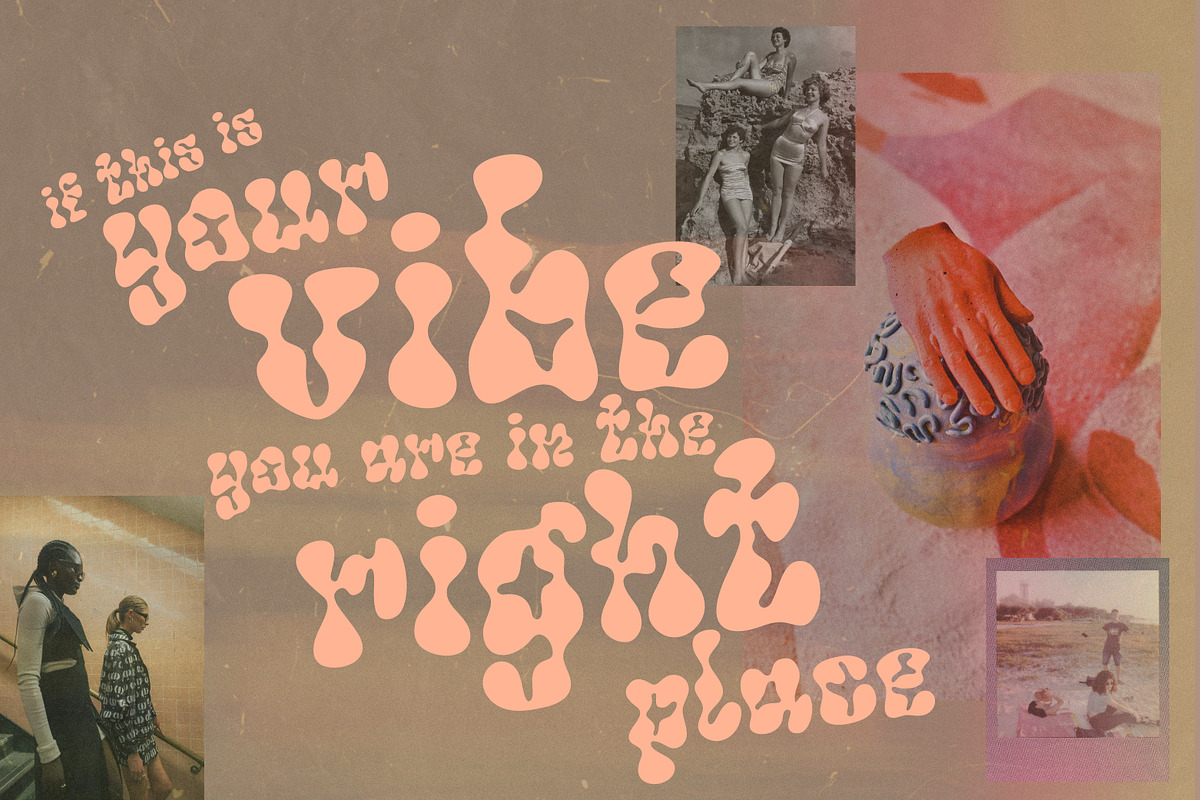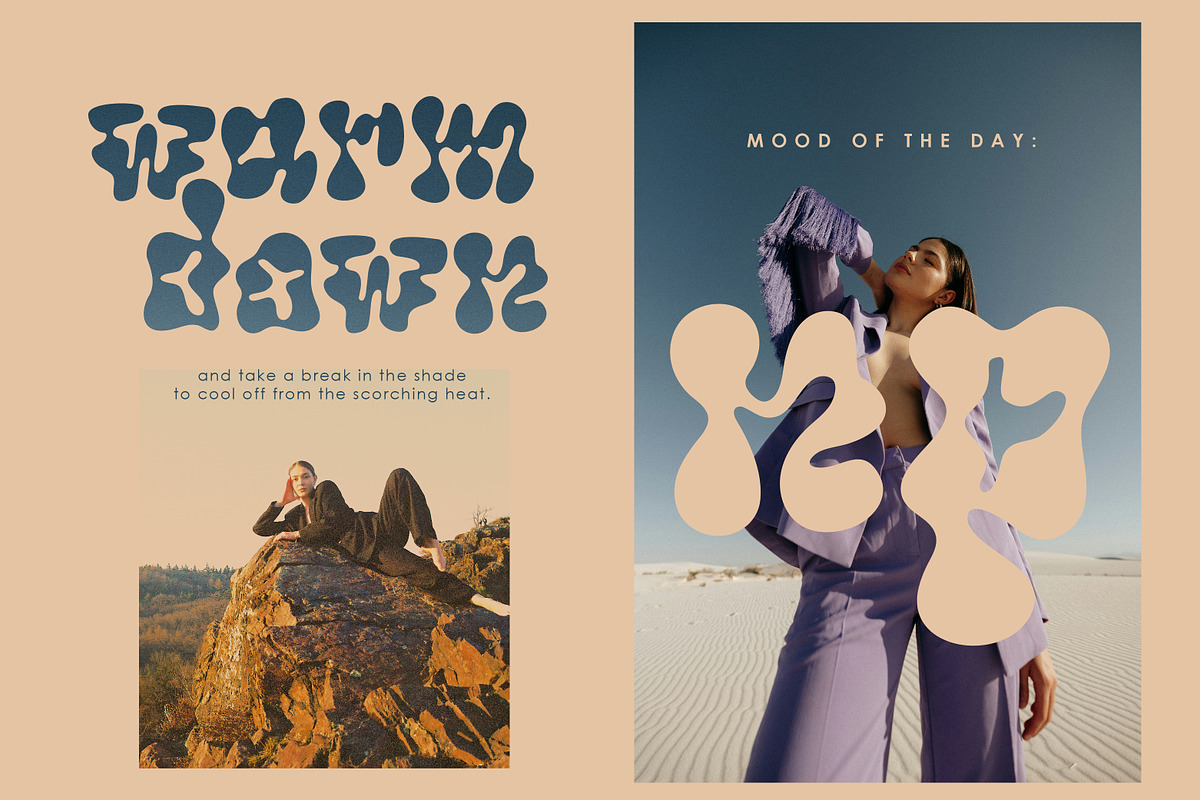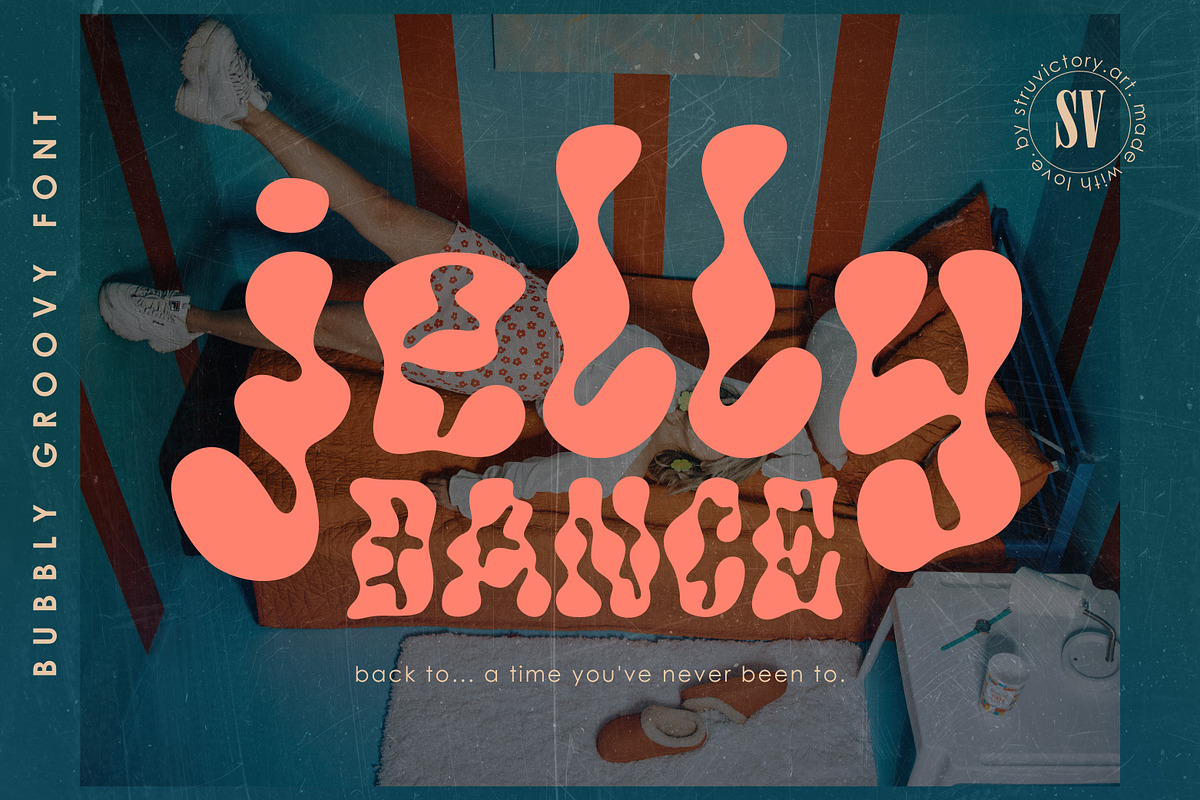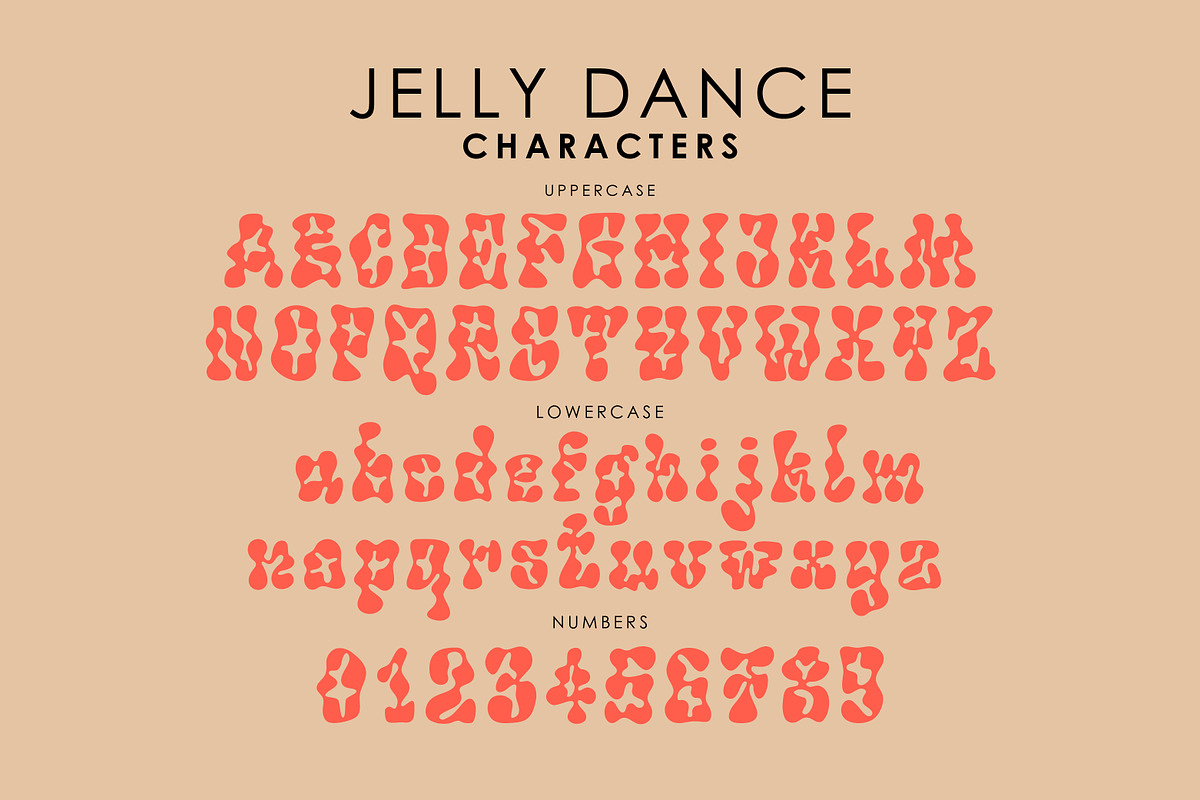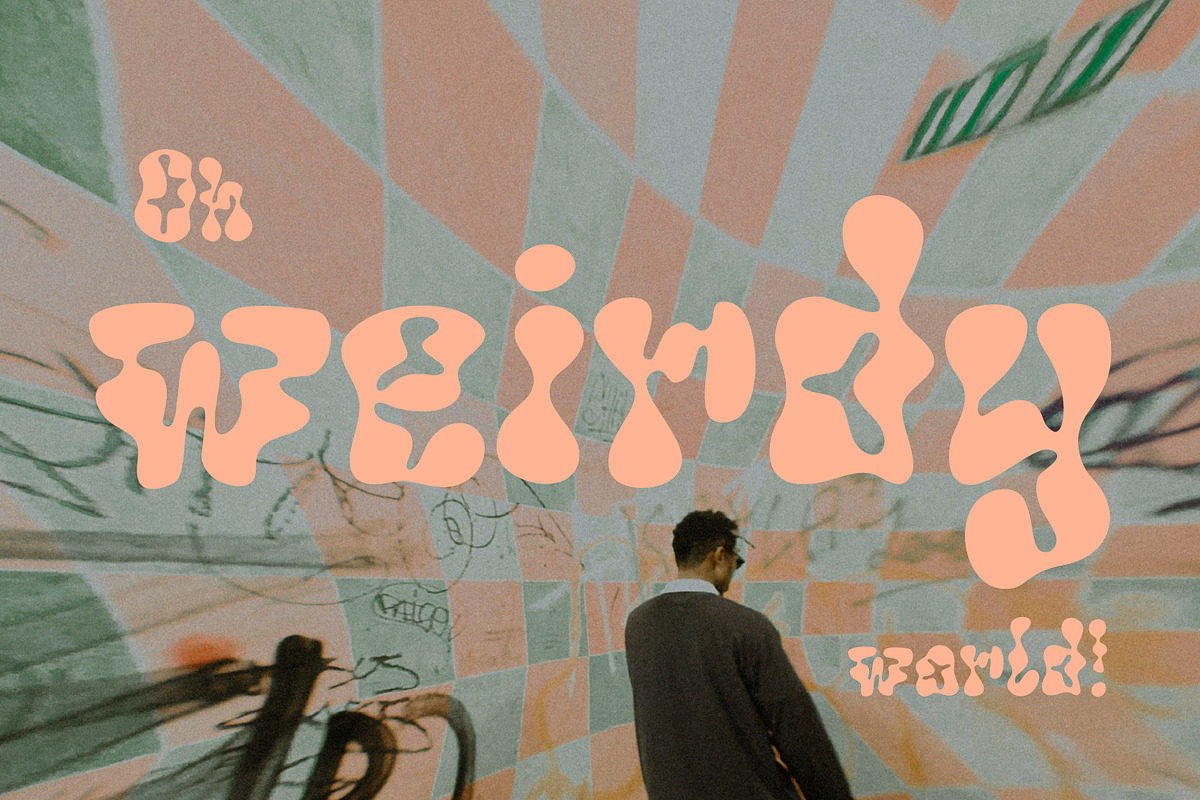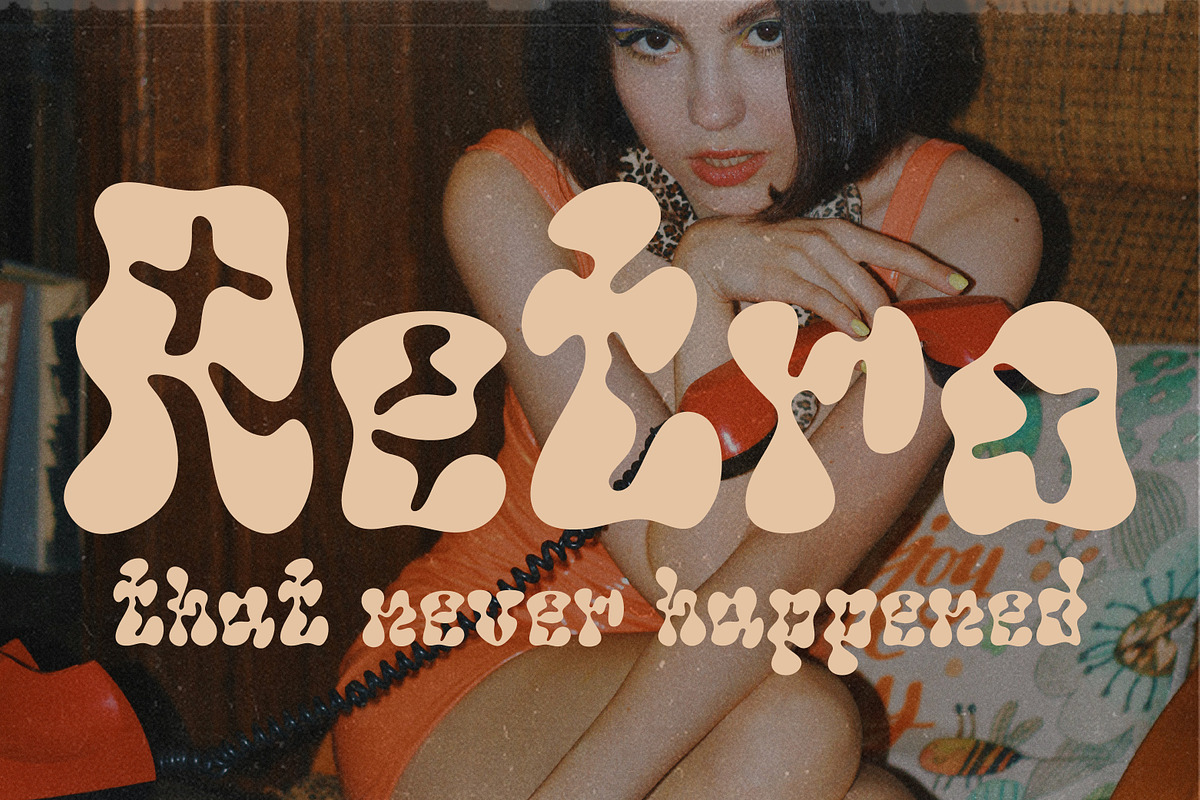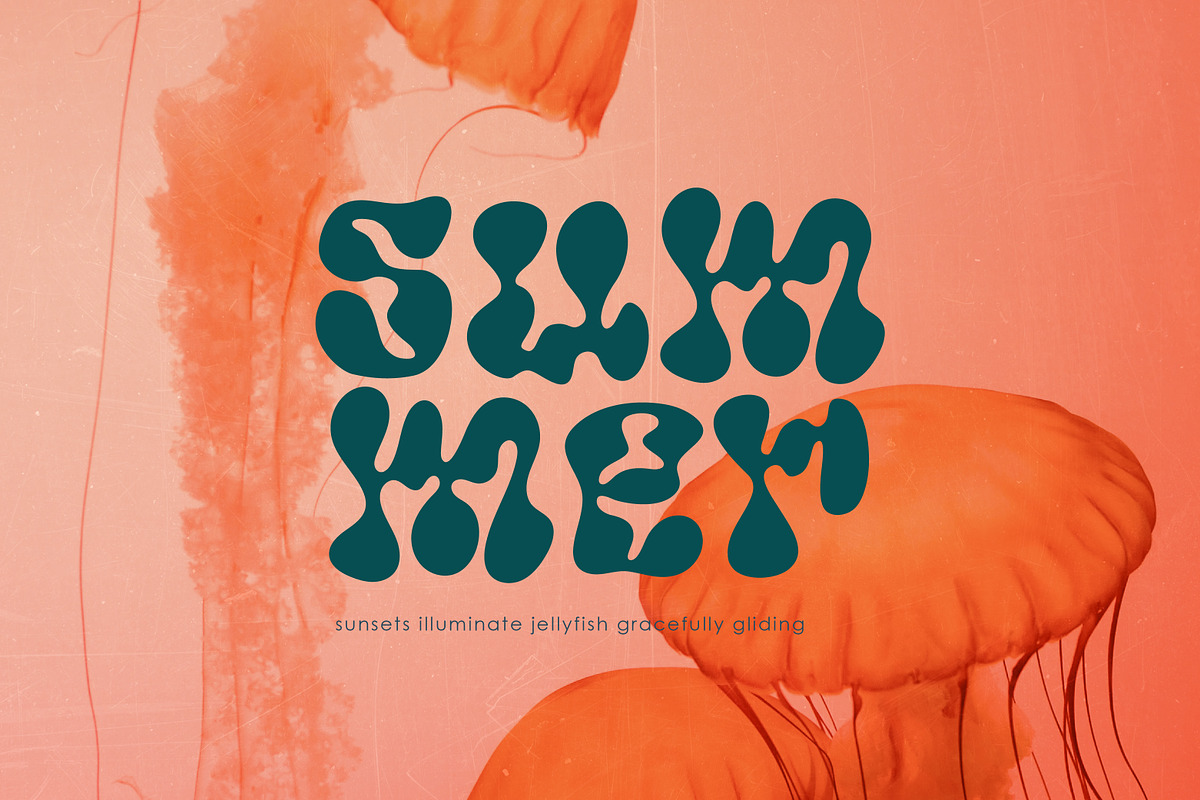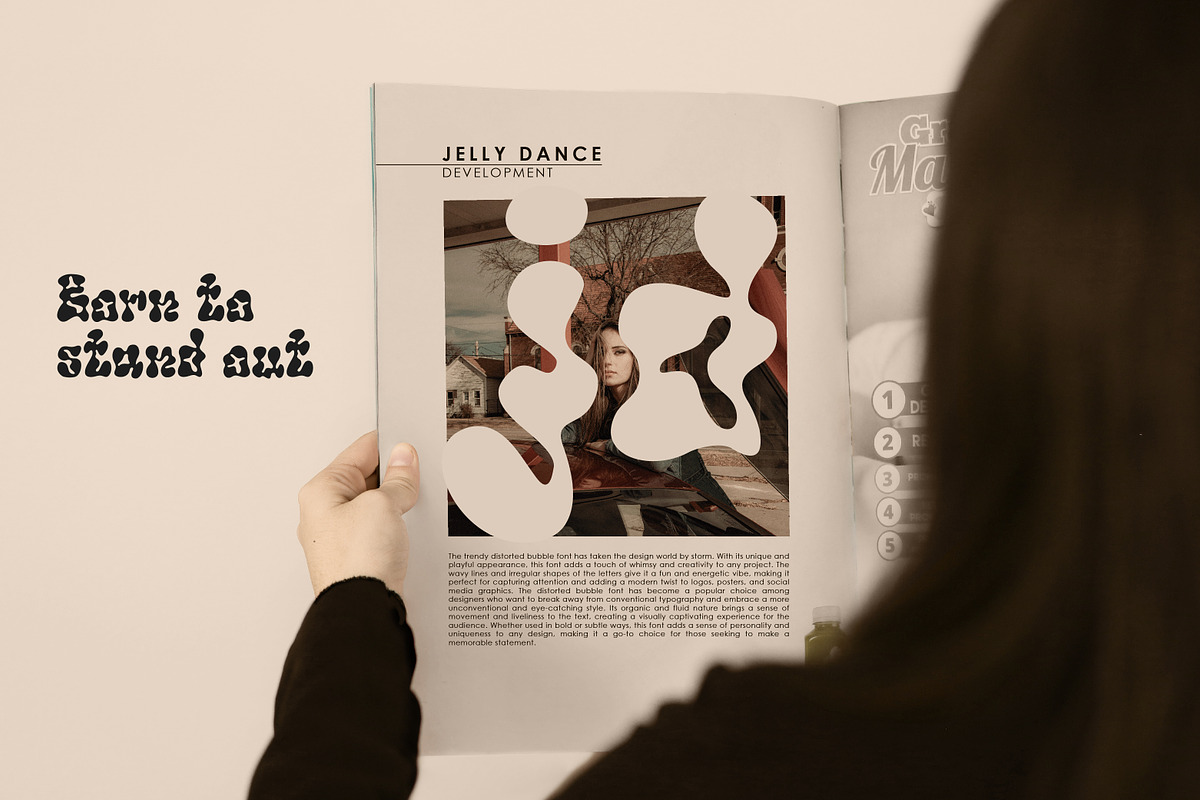
Jelly Dance - Bubbly Groovy Font
Introducing Jelly Dance Bubbly Font: The Perfect Blend of Retro Inspiration and Modern Sophistication. Elevate your designs with Jelly Dance, a bold and liquid font that effortlessly captures the essence of retro aesthetics. Its smooth curves and bold presence make it ideal for modern posters, magazine headlines, and logos. Let Jelly Dance font bring a touch of nostalgia and contemporary allure to your projects, making a lasting impression with its captivating design.